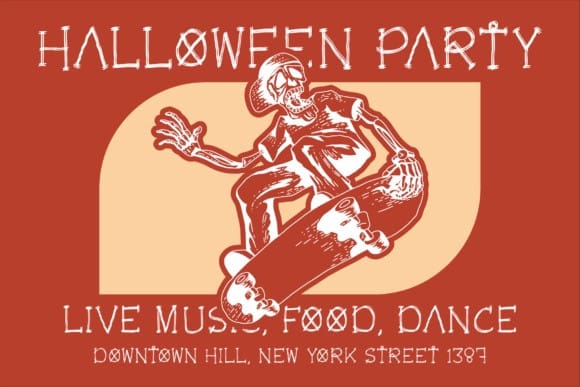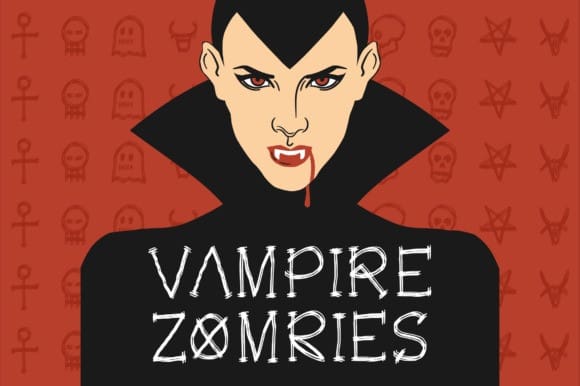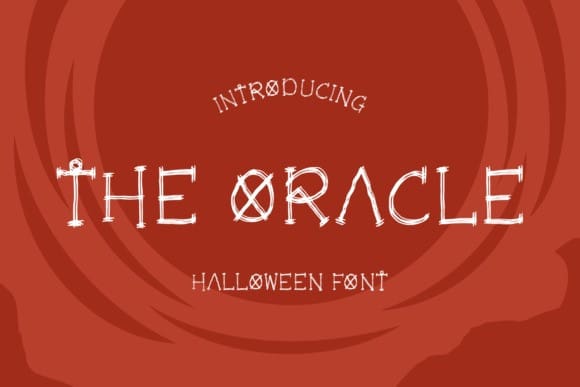
The Oracle Font
The Oracle Font is a scary font with a minimal effect of brushstrokes. The additional elements of skulls, ghosts, and bones make an ambiance of horror Invitations, postcards, posters, and headings for a Halloween event; this font can be used in every setting.